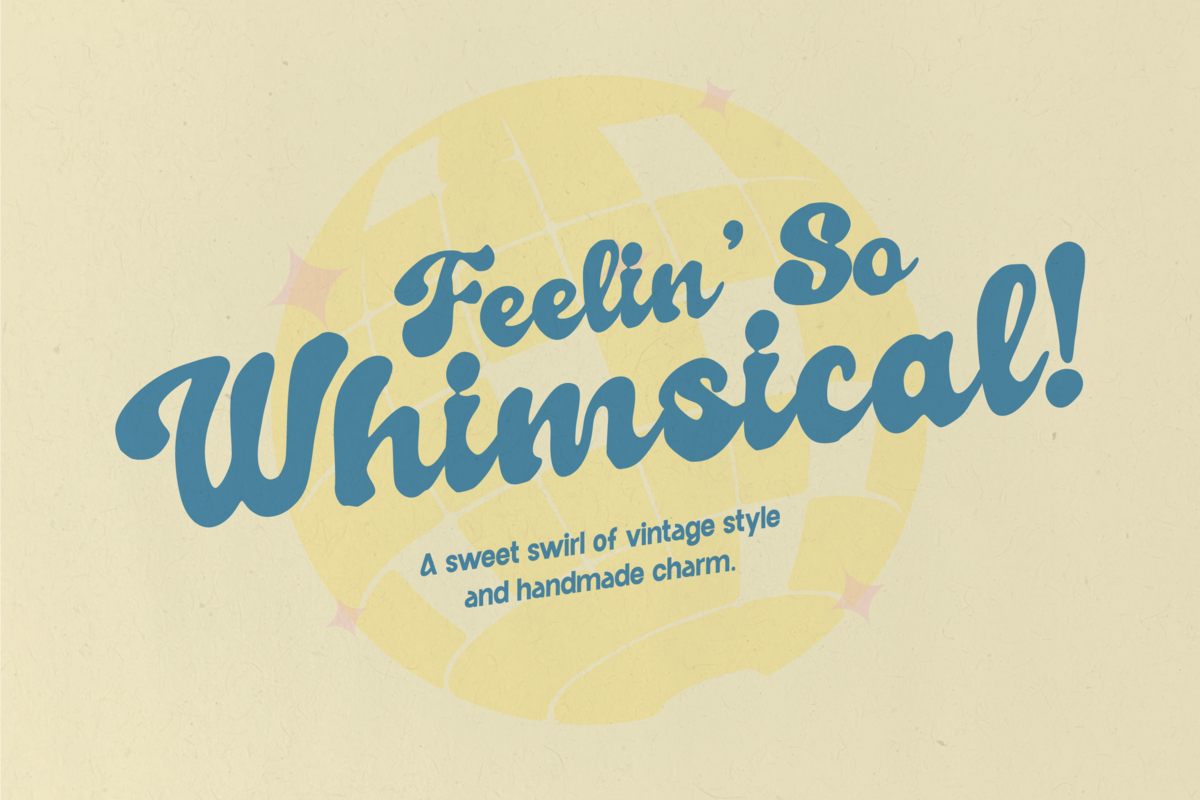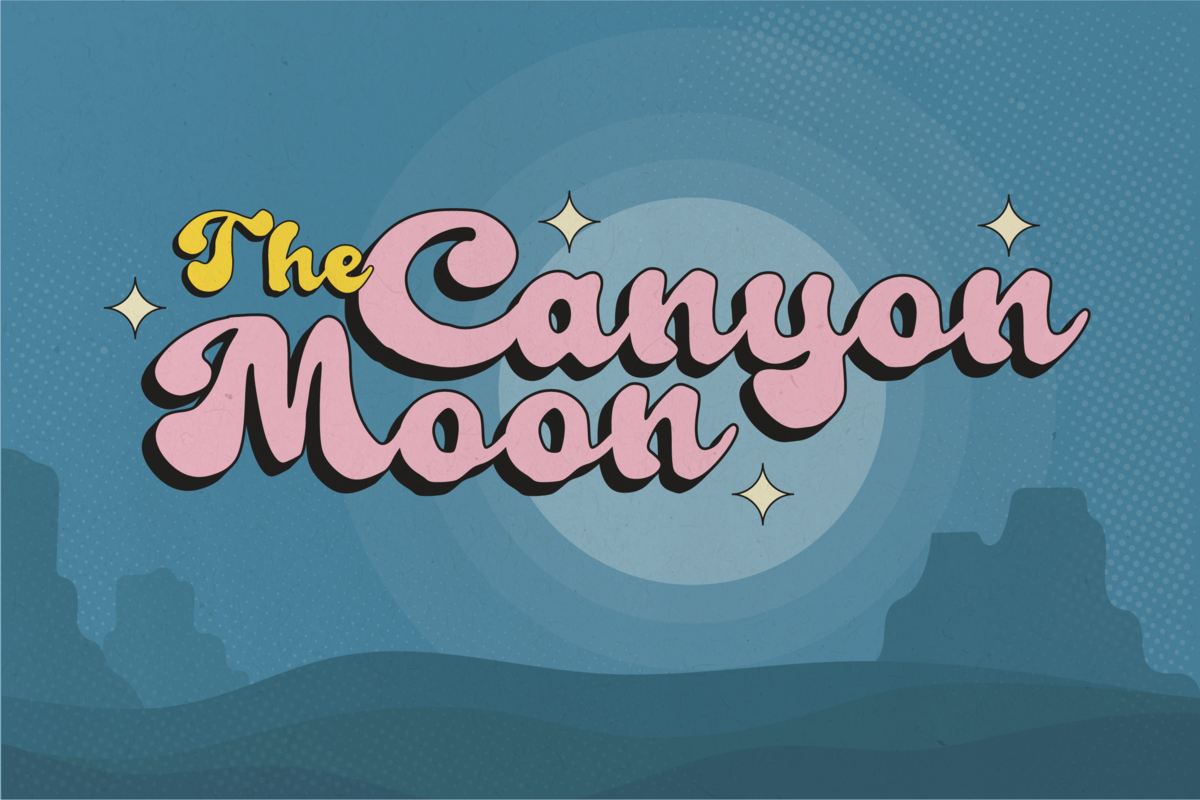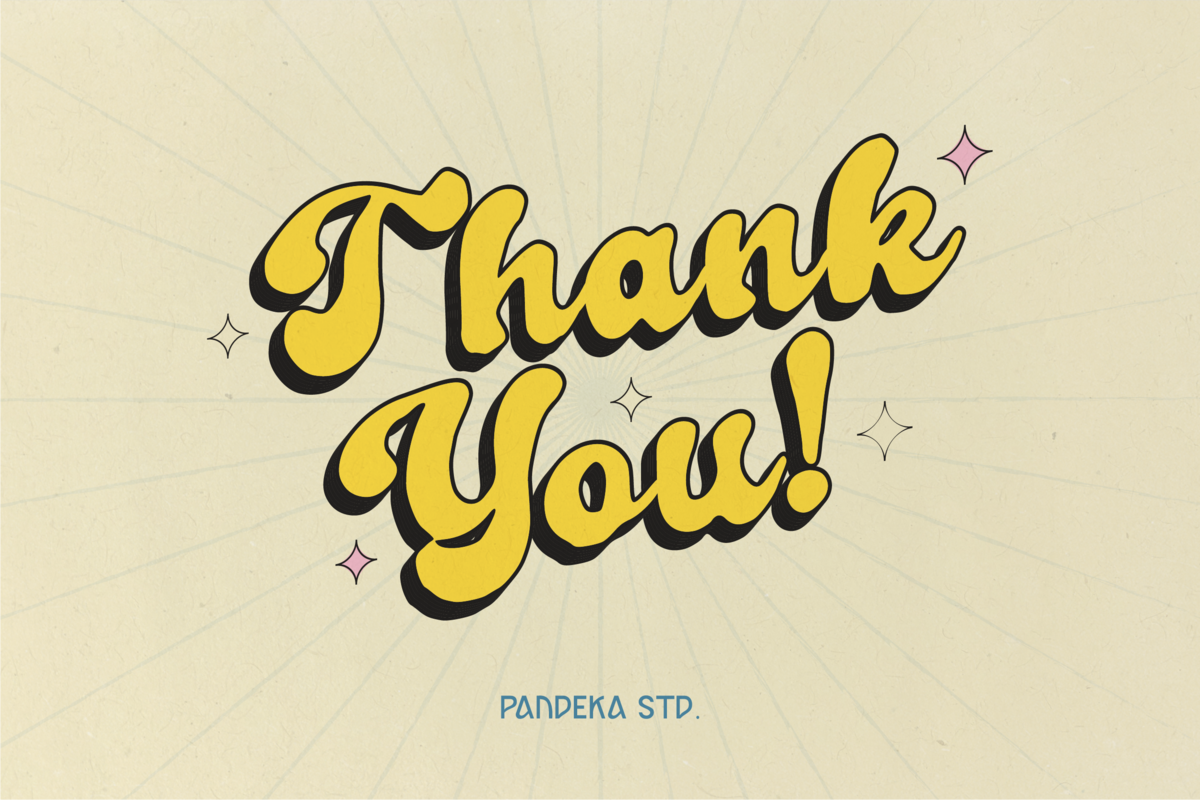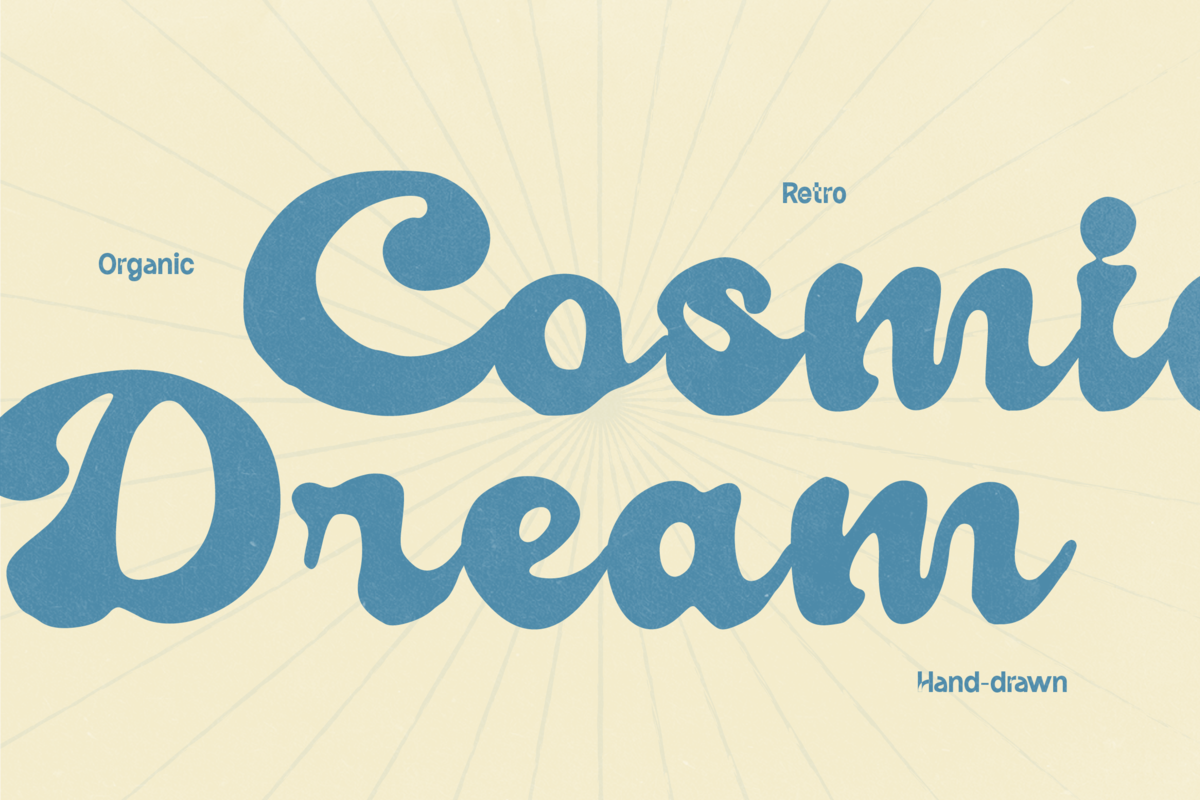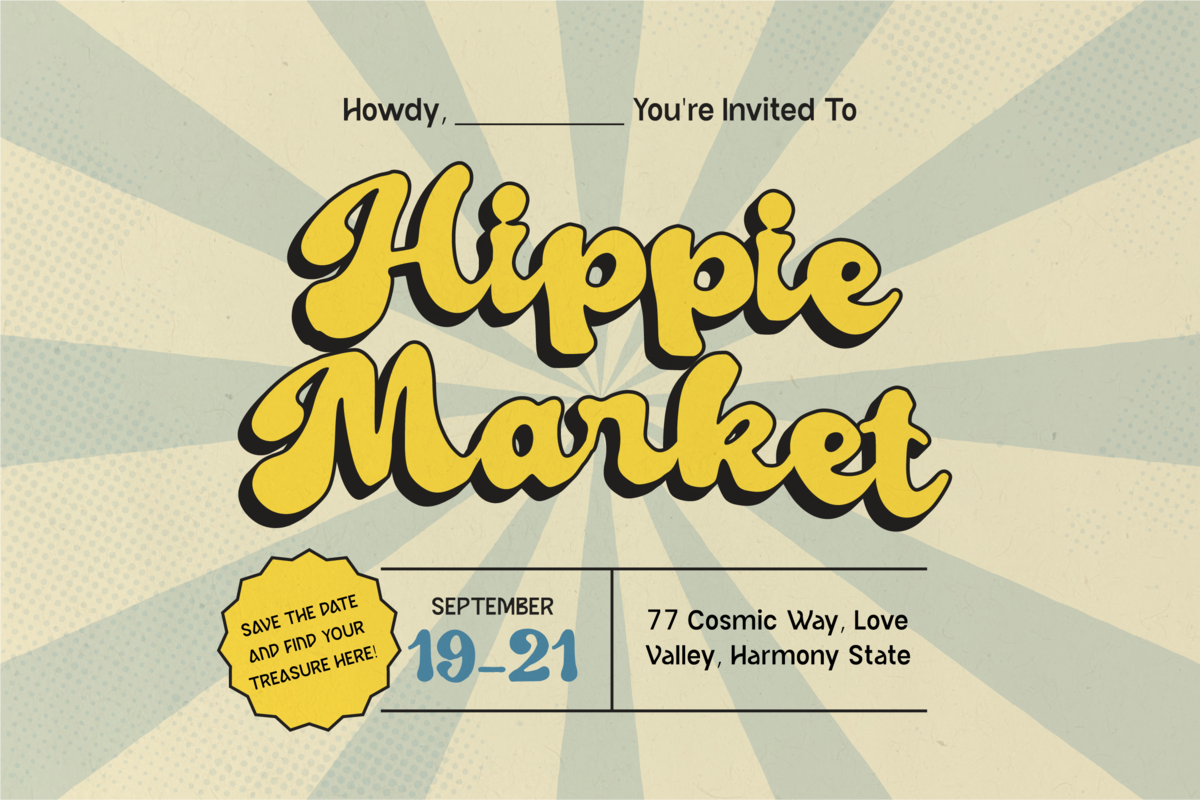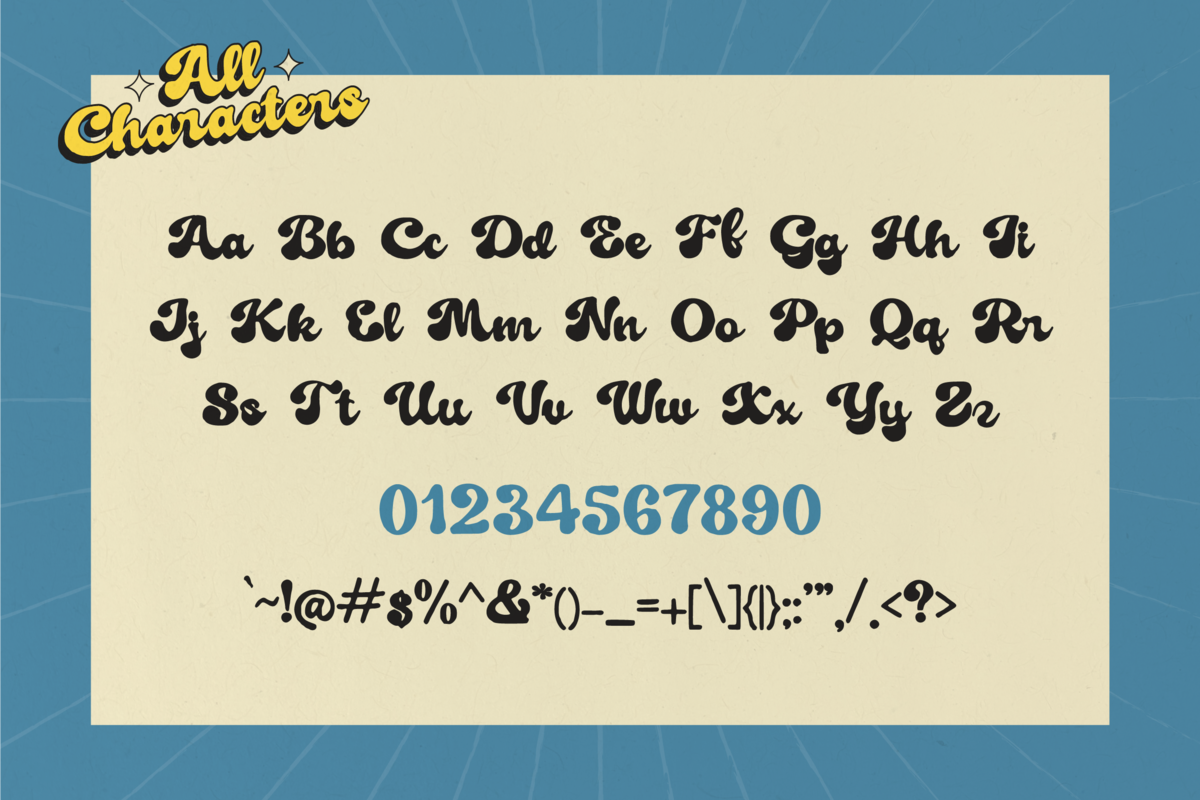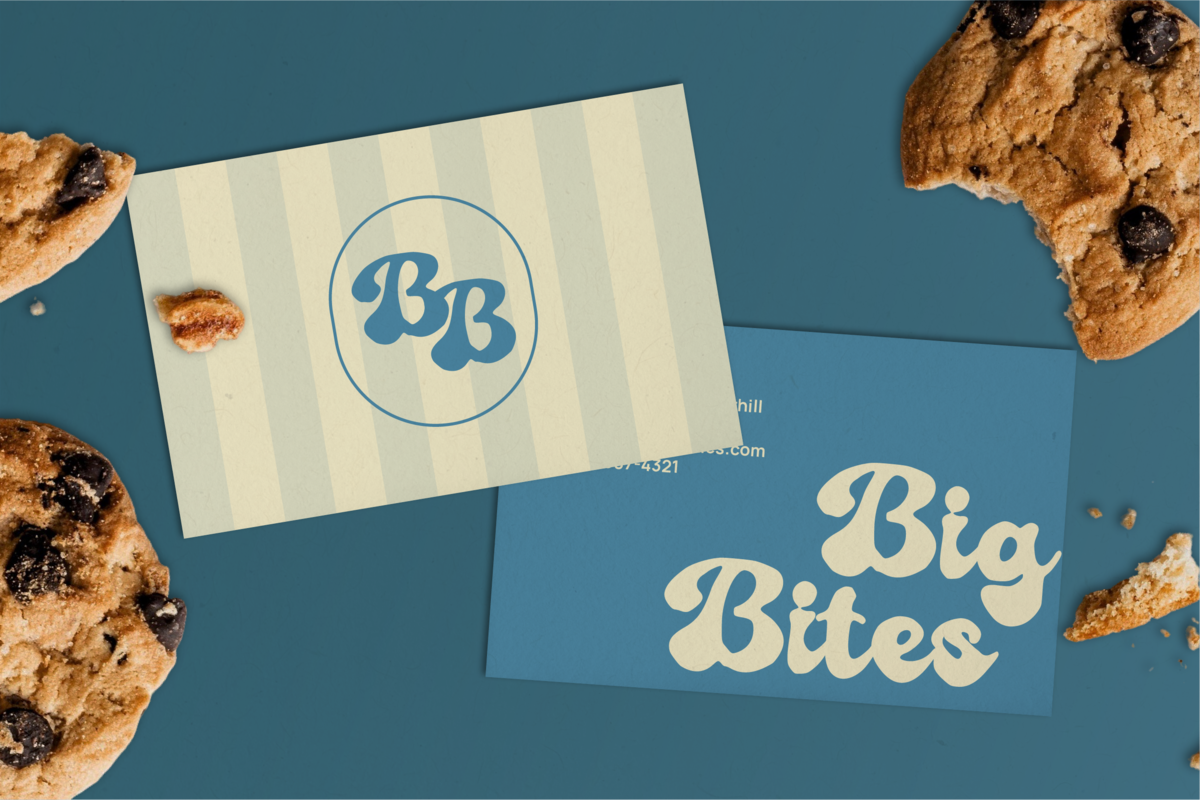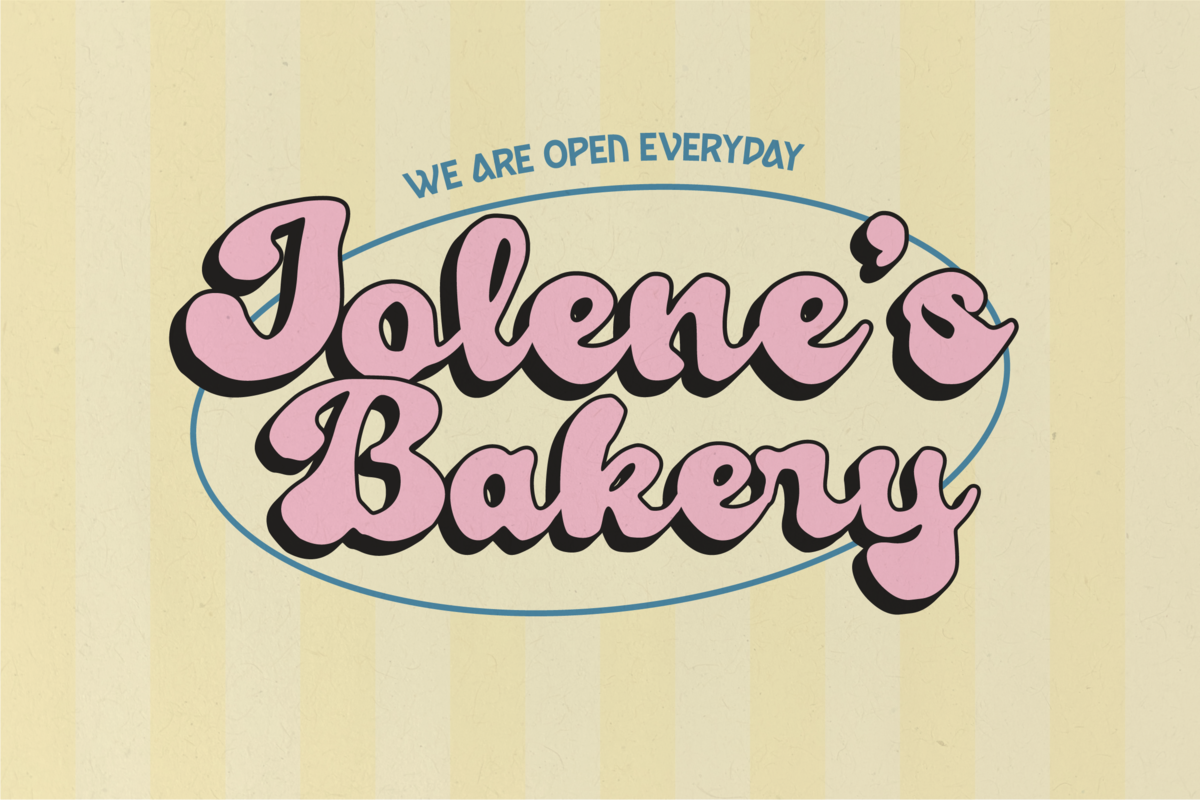
Tunlie Roots - Food Handdrawn Retro
Tunlie Roots is a retro hand-drawn display font with a warm, nostalgic charm. Its playful curves and handcrafted feel make it perfect for food-related branding, vintage packaging, restaurant logos, café menus, and cheerful advertising. With its unique retro vibes, Tunlie Roots brings a personal and authentic touch to every design.
Even with just a Regular style, Tunlie Roots delivers strong versatility — ideal for titles, signage, posters, or any project that needs a fun retro hand-crafted aesthetic. The font includes uppercase and lowercase letters, numbers, punctuation, and multilingual support, making it ready for both local and global creative needs.
- Full Character Set: Uppercase, lowercase, numbers, symbols, and punctuation